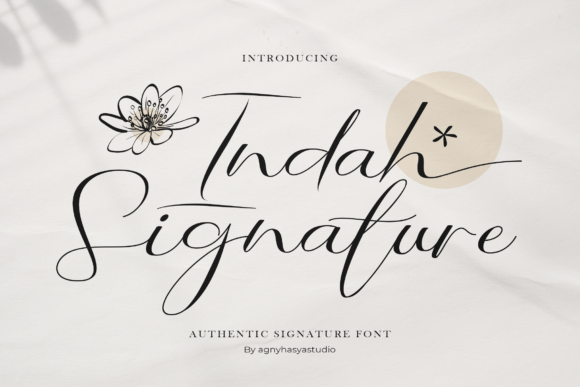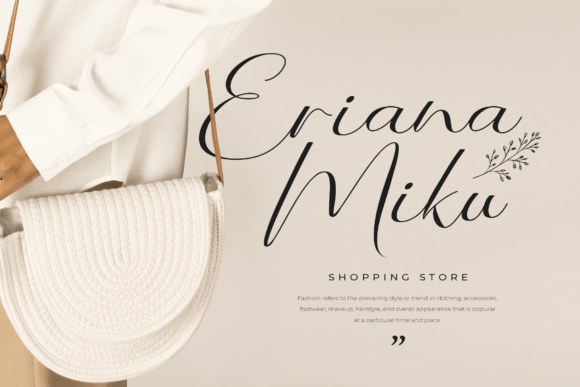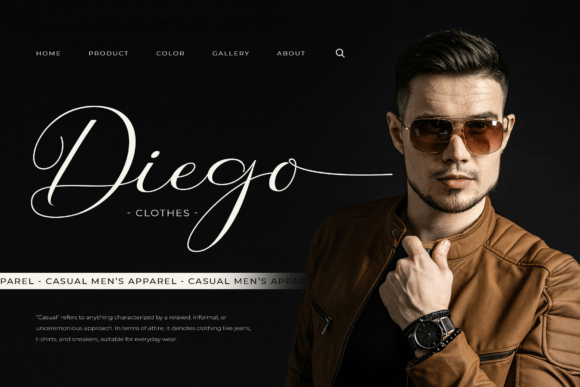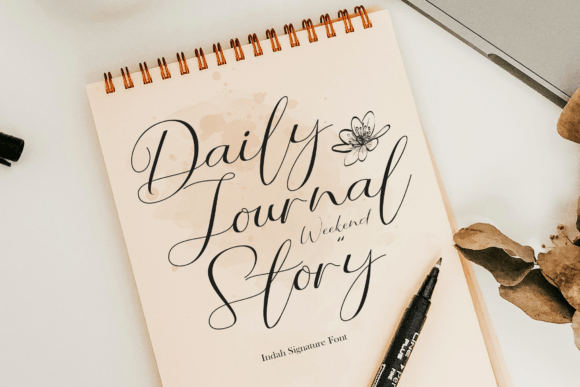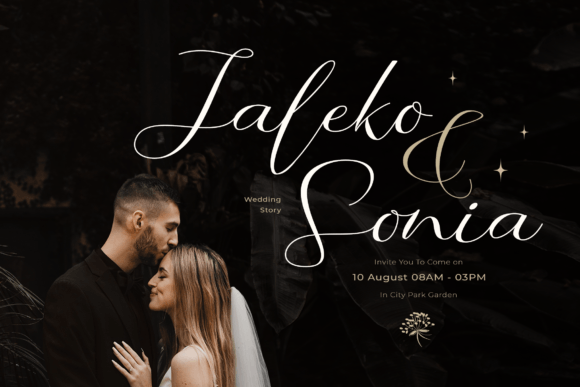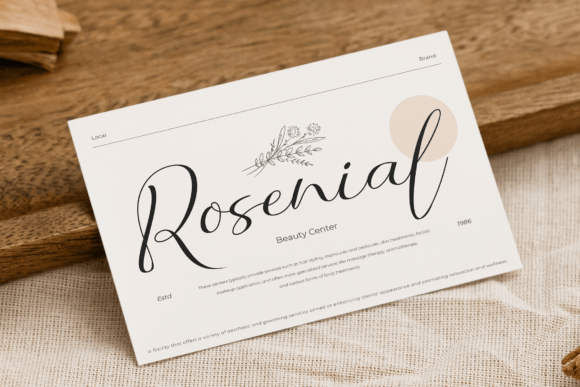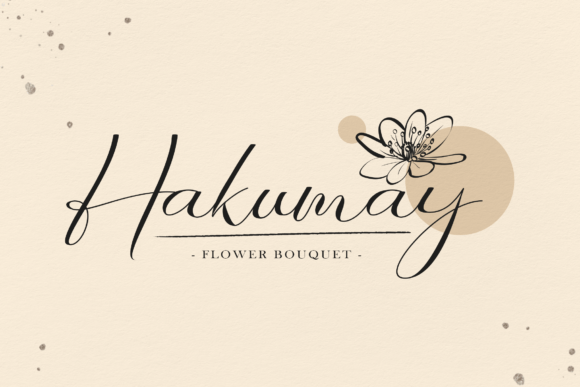
The Perfect Touch of Personality in Your Designs
As designers, we’re always on the lookout for that special something to elevate our work and make it truly unique. Whether it’s a custom illustration, a bold color palette, or a stylish typography, the right element can transform a design from ordinary to extraordinary. I still remember the moment I stumbled upon the Indah Signature Font – it was love at first sight! Its elegant, handwritten script style instantly captured my attention, and I knew I had to learn more.
Indah Signature Font is a versatile and sophisticated typeface that brings a personal touch to any design. Perfect for invitations, logos, and personal projects, this font adds a creative flair that’s hard to resist. For designers, Indah Signature Font is a valuable asset that can help take their work to the next level. Its unique style and natural handwriting look make it an ideal choice for those looking to add a touch of elegance and sophistication to their designs.
Indah Signature Font Key Features
- Font Style: Script, Handwritten, Signature Font
- Unique Characteristics: Elegant, luxurious, and sophisticated design, ideal for branding, invitations, and special occasions
Indah Signature Font Review
After working with the Indah Signature Font, I have mixed feelings about this script font. On one hand, ✨ it’s great for creating a sense of elegance and sophistication in designs. The flowing lines and subtle flourishes make it perfect for titles, headings, and other high-impact elements. It’s also ✨ highly legible, even at smaller font sizes, which is a huge plus.
However, there are some limitations to consider. ⚠️ One of the main issues is that the font can be a bit too ornate for some designs. It may overpower the rest of the content and make it difficult to read. Additionally, ⚠️ the font doesn’t come with a wide range of weights or styles, which can limit its versatility.
- ✨ Elegant and sophisticated look
- ✨ Highly legible, even at small font sizes
- ⚠️ Can be too ornate for some designs
- ⚠️ Limited weight and style options
Overall, I would recommend the Indah Signature Font for designs that require a touch of elegance and sophistication. However, it’s not the best choice for more straightforward or minimalist designs.
Tips for Getting the Most Out of Indah Signature Font
Use Indah Signature Font for:
- Brand logos and marketing materials.
- Personalized gifts and stationery.
Experiment with different font sizes, styles, and combinations to create a unique look.
Alternatives to Indah Signature Font
The Great Vibes Font is a modern, elegant script font that is perfect for adding a touch of sophistication to your designs. It is ideal for use in branding, advertising, and editorial content. Great Vibes Font has a more refined and precise feel compared to Indah Signature Font, making it a great choice for designers who want a more polished look.
The Carolyna Pro Font is a stylish, modern script font that is perfect for creating eye-catching headlines and titles. It is ideal for use in branding, advertising, and packaging design. Carolyna Pro Font has a more dramatic and luxurious feel compared to Indah Signature Font, making it a great choice for designers who want to add a touch of glamour to their designs.
The Alex Brush Font is a elegant, handwritten script font that is perfect for adding a touch of warmth and personality to your designs. It is ideal for use in editorial content, branding, and social media graphics. Alex Brush Font has a more organic and natural feel compared to Indah Signature Font, making it a great choice for designers who want to create a more relatable and human-centered design.